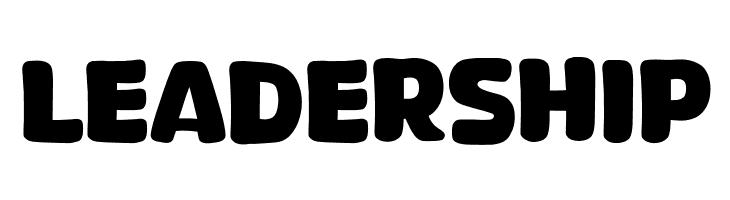
A bold, playful font with rounded edges and a lively style.
A bold, retro-inspired font with playful geometric shapes and curves.
A bold, geometric font with a three-dimensional shadow effect.
A bold, rounded font with a playful and friendly style.
A playful and whimsical font with rounded, flowing letterforms.
A modern font with geometric influences and elongated strokes.
A whimsical, book-inspired display font with illustrated, characterful glyphs.
A bold, italicized font with a distressed texture and dynamic slant.
A decorative series of abstract, fish-like shapes with bold, graphic patterns.
A modern, geometric font with bold uppercase and consistent lowercase letters.
A playful, comic-style font with bold, dynamic letterforms.
A playful, rounded font with smooth curves and consistent stroke width.
A bold, textured font with a rustic, handcrafted appearance.
A bold, textured font with a handcrafted, vintage appearance.
Bold serif font with strong, classic characters.
A classic serif font with elegant proportions and refined serifs.
A playful, handwritten font with a casual and dynamic style.
A modern, rounded sans-serif font with a friendly and approachable style.
A bold, italic font with smooth, rounded edges and a dynamic slant.
A modern sans-serif font with rounded edges and excellent readability.
Book and reading-themed decorative dingbat font.
A decorative collection of book-themed illustrations.
A clean, straightforward font with uniform stroke width and high legibility.
A playful, handwritten font with smooth, rounded edges and a casual style.
A dynamic and flowing script font with elegant, cursive letterforms.
A dynamic, cursive script font with elegant, flowing strokes.
A bold, playful font with dynamic shapes and thick strokes.
A bold, playful font with a three-dimensional shadow effect, ideal for dynamic and energetic designs.
A bold, graffiti-inspired font with sharp, angular lines and a rebellious style.
A bold, geometric font with a futuristic and modern aesthetic.
A playful, casual handwritten font with smooth curves and a natural look.
A bold, dynamic brush script font with expressive strokes and a hand-painted look.